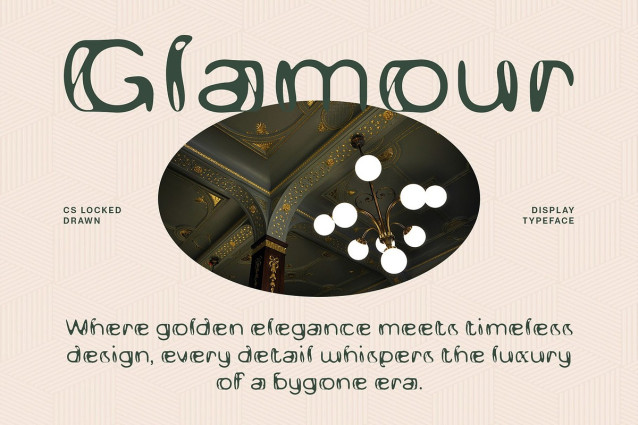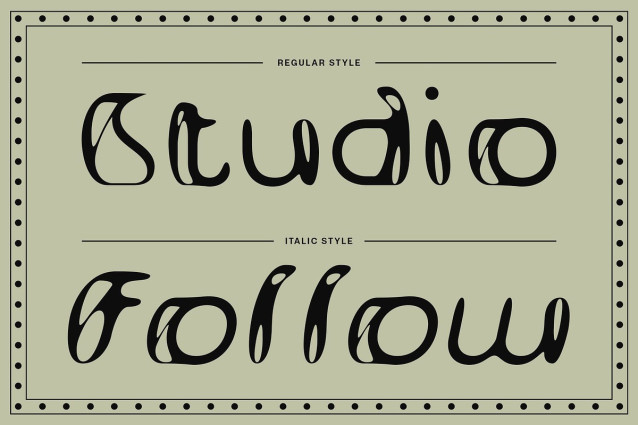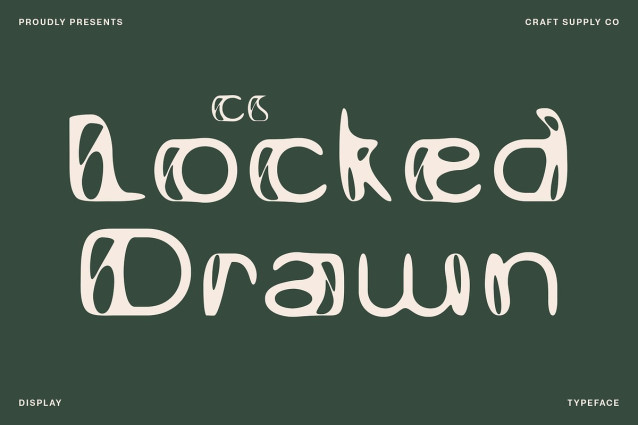
CS Locked Drawn Font is a modern sans serif display font inspired by the timeless beauty of Art Deco design. Its clean geometric forms are enhanced with graceful flourish details, creating a sense of sophistication and refinement. The subtle drawn effect adds an artisanal touch, giving the font a unique character that feels both classic and contemporary.
Artistic and Captivating Design This typeface strikes a perfect balance between structure and artistry. Its bold shapes exude confidence, while the decorative accents introduce elegance and charm. Whether for bold display use or refined branding, this creative contemporary font effortlessly conveys both sophistication and originality.
Perfect for Luxury and Creative Projects Ideal for posters, editorial layouts, packaging, and high-end branding, this decorative font elevates any design with its distinctive Art Deco-inspired style. It’s especially fitting for projects seeking to blend modern clarity with vintage sophistication, making your typography truly captivating and memorable.
Classic Yet Contemporary This modern classic font stands out as a versatile display font that bridges eras. Its distinctive drawn effect adds warmth and individuality, making each character feel more personal and expressive. This subtle handcrafted detail enhances its overall character, setting it apart from standard digital fonts that often feel too rigid or mechanical.